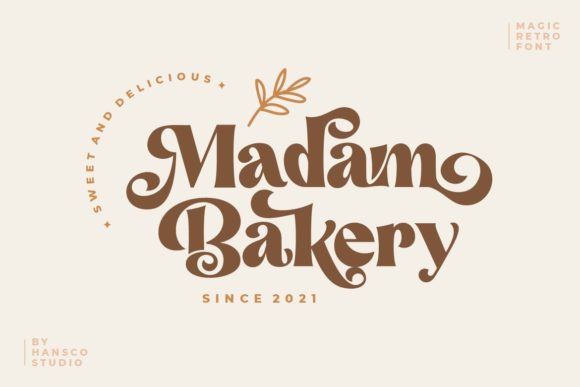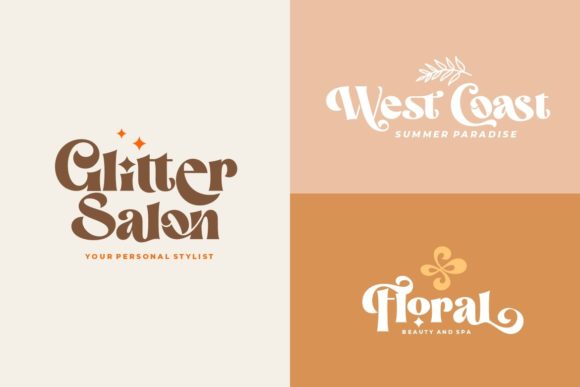
Magic Retro Font
Magic Retro feels playfully nostalgic and delivers an incredible vintage aesthetic. Use this serif font to add that special touch to any design idea you can think of!